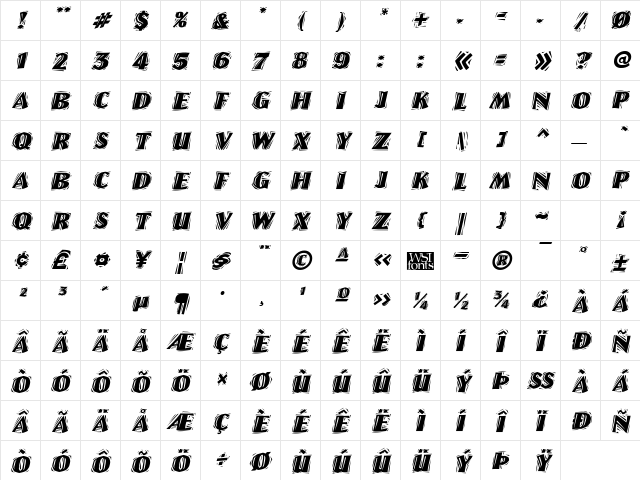
LinoLetterCutRagged Italic Free Font
LinoLetterCutRagged Italic
Design Context for LinoLetterCutRagged
LinoLetterCutRagged is a composed and adaptable typeface that performs quietly and consistently across a wide range of design contexts. The slanted form adds forward momentum and visual energy.
Pro Tip: Use LinoLetterCutRagged for emphasis, pull quotes, and subheadings where its slanted energy can add rhythm to the layout.